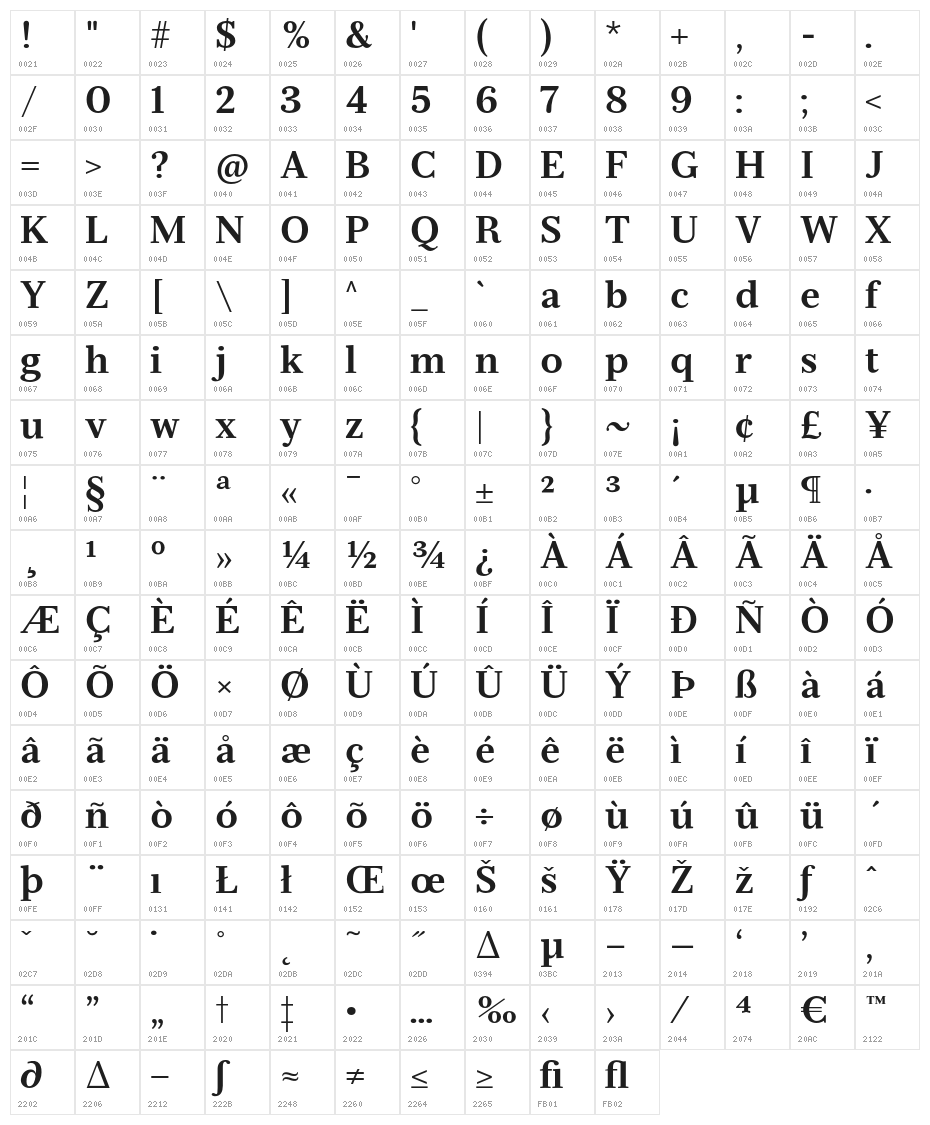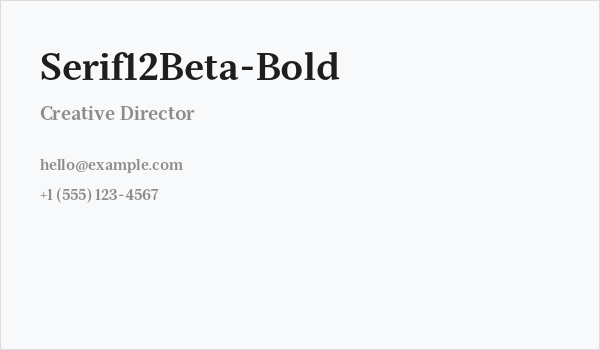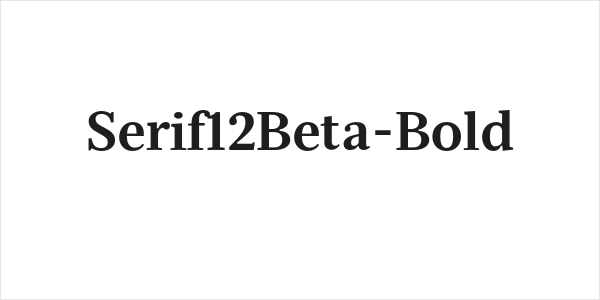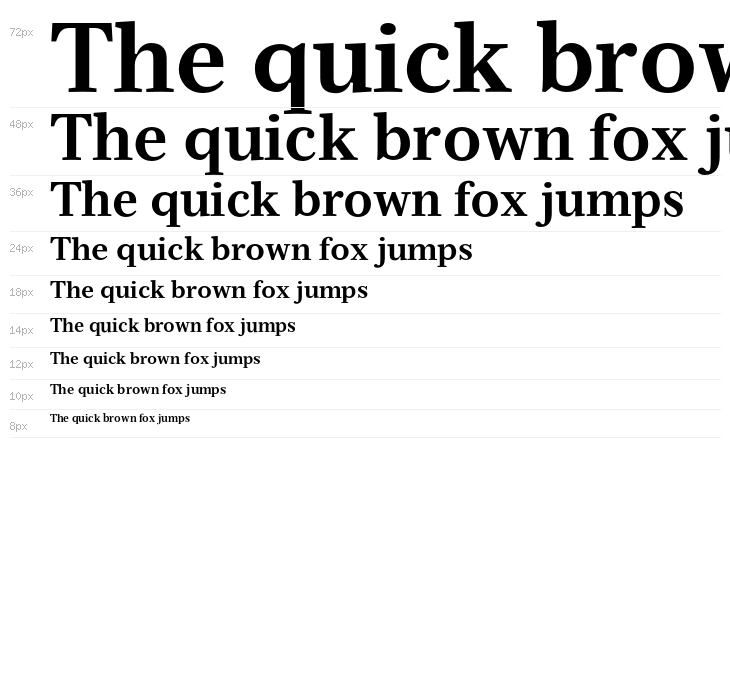
Serif12Beta-Bold Font
Serif12Beta-Bold Description
This font features a classic serif design with strong, bold strokes that convey a sense of authority and tradition. The serifs are pronounced, providing a traditional feel, while the overall structure remains clean and legible. The uppercase letters are well-proportioned, with a slight emphasis on verticality, giving them a stately appearance. Lowercase letters maintain a consistent style, ensuring readability across various sizes. Numerals are clear and distinct, making them suitable for both text and display purposes. Special characters are designed with the same attention to detail, ensuring a cohesive look throughout.